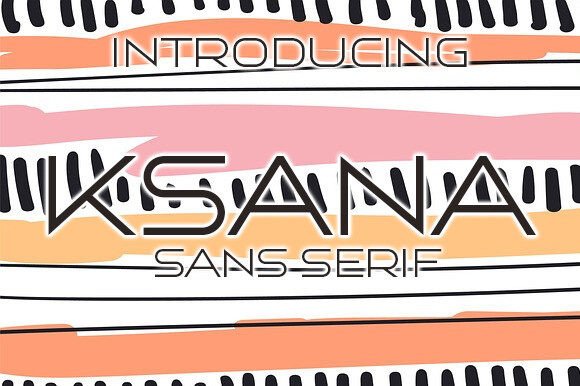
Behold, the Ksana Font - an extraordinary sans serif font, a masterpiece crafted with meticulous precision and elegance, ready to transform your creative visions into captivating realities. Embrace the allure of Ksana, a font that exudes sophistication and charm, leaving an indelible mark on all who encounter it.
Ksana's graceful strokes and meticulously crafted curves embody harmony and balance, beckoning you to embark on a creative journey like never before. Its clean lines and timeless appeal make it the perfect choice for any design project, ensuring your creations stand out with a timeless allure.
Immerse yourself in the versatility of Ksana, a font that effortlessly adapts to your every need. Whether you're crafting stunning posters that demand attention or creating eye-catching flyers that ignite excitement, Ksana seamlessly blends into your design, enhancing its impact and leaving a lasting impression.
Unleash your creativity and let your imagination soar with Ksana. Its effortless flow and seamless integration make it the perfect companion for designing t-shirts that speak volumes. Let Ksana's subtle elegance elevate your designs, captivating your audience with its understated charm.
With Ksana, you hold the key to unlocking a world of creative possibilities. Its exceptional readability and unwavering clarity make it the ideal choice for creating captivating print PDFs that inform, engage, and inspire.
Ksana, the sans serif font that ignites your creativity and empowers you to weave tales with every stroke. Experience the magic of Ksana today and elevate your designs to new heights of brilliance.